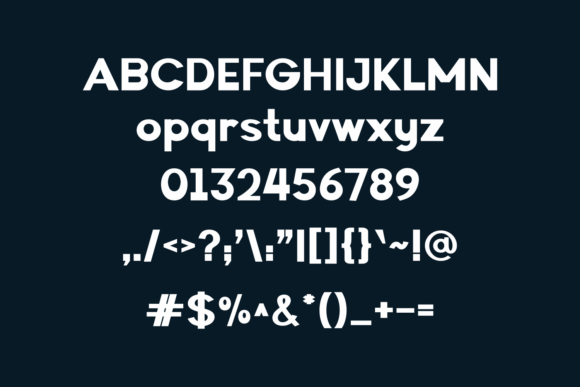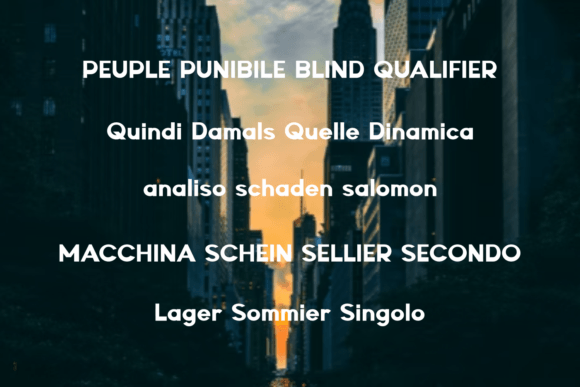
Discover the Unique Charm of Gropo Font: Elevate Your Designs with its Timeless Style
Are you tired of using the same old fonts in your designs? Look no further! Introducing Gropo Font, a cool and unique sans serif font that is sure to capture your heart. With its incredibly distinct and timeless style, Gropo is the perfect addition to your font collection. In this article, we’ll dive into the world of Gropo Font and explore how you can use it to create spectacular designs that stand out from the crowd.
What Makes Gropo Font So Special?
Gropo Font is a sans serif font, which means it doesn’t have the small lines or flourishes that are characteristic of serif fonts. But what sets it apart from other sans serif fonts is its unique and distinctive style. The letters are carefully crafted to have a perfect balance of curves and straight lines, making it both modern and elegant. The font is also highly legible, making it perfect for use in a variety of design projects, from logos and branding to headings and body text.
The Benefits of Using Gropo Font in Your Designs
So, why should you choose Gropo Font for your next design project? Here are just a few benefits of using this amazing font:
- Uniqueness: Gropo Font is unlike any other font out there. Its distinctive style will help your designs stand out and grab attention.
- Timelessness: Unlike trendy fonts that quickly go out of style, Gropo Font has a timeless quality that will ensure your designs remain relevant for years to come.
- Versatility: Gropo Font is highly versatile and can be used in a wide range of design projects, from logos and branding to posters and social media graphics.
- Legibility: The font is highly legible, making it perfect for use in body text and other applications where readability is key.
How to Use Gropo Font in Your Designs
Now that you know why Gropo Font is so special, let’s talk about how to use it in your designs. Here are a few tips to get you started:
- Pair it with other fonts: Gropo Font pairs well with a variety of other fonts, so don’t be afraid to experiment and find the perfect combination for your design.
- Use it for headings and titles: Gropo Font is perfect for use in headings and titles, where its unique style can really shine.
- Experiment with different colors and textures: Gropo Font looks great in a variety of colors and textures, so don’t be afraid to get creative and try out different effects.
Who is Gropo Font Suitable For?
Gropo Font is perfect for designers, crafters, and anyone looking to add a unique touch to their designs. Whether you’re a professional designer or a DIY enthusiast, Gropo Font is a great addition to your font collection. Here are just a few examples of who might find Gropo Font useful:
- Graphic designers: Gropo Font is perfect for use in logos, branding, and other graphic design projects.
- Crafters: If you enjoy crafting, scrapbooking, or making DIY projects, Gropo Font is a great way to add a personal touch to your creations.
- Social media managers: Gropo Font is perfect for use in social media graphics, where its unique style can help your posts stand out.
In conclusion, Gropo Font is a cool and unique sans serif font that is sure to capture your heart. With its incredibly distinct and timeless style, Gropo is the perfect addition to your font collection. Whether you’re a designer, crafter, or just someone looking to add a unique touch to your designs, Gropo Font is a great choice. So why wait? Fall in love with Gropo Font today and start creating spectacular designs that stand out from the crowd!